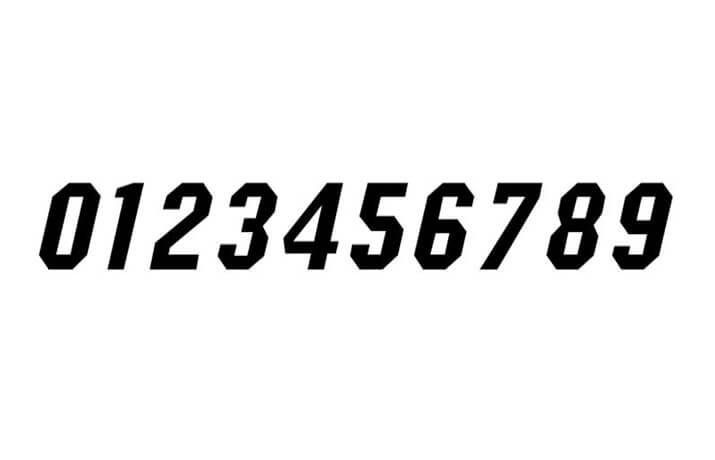
Today we discussed a logo typeface called Miami Heat Font. The Miami Heat is primarily an American professional basketball team founded in 1988.
It forms part of the NBA Championship and has won 18 titles with 3 championships including 2006, 2012, and 2013. Because of this, he has a huge number of fans all over the world.
Many designers look forward to the logo font that the designer used in their titles. So, here we want to give an exact typeface used by the designer.
This beautiful font is made with bold strokes with sans serif corners. All letters have proper basic letters with a special fire effect that you will see in the top corner of each letter.
Due to its bold and thick texture, you can create book covers, unique signs, game titles, cartoon posters, special event cards, product designs, headlines, brand logos, and many more.
It is only available in a regular style with OpenType features. This single style has 37 glyphs as well as 62 characters. All the basic characters are 26 uppercase, 26 lowercase, and 10 numbers.